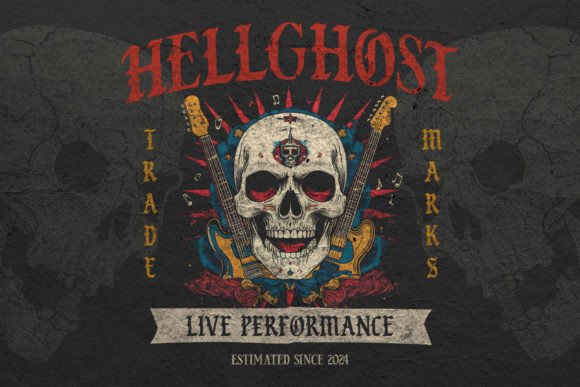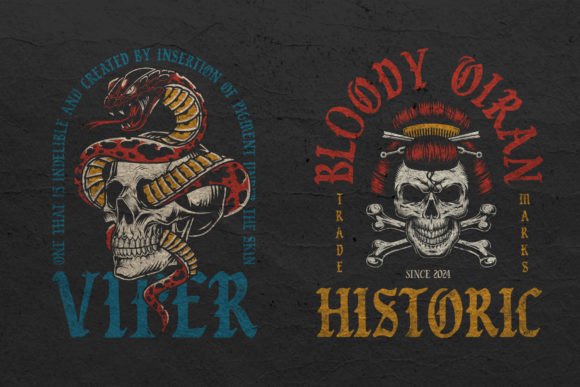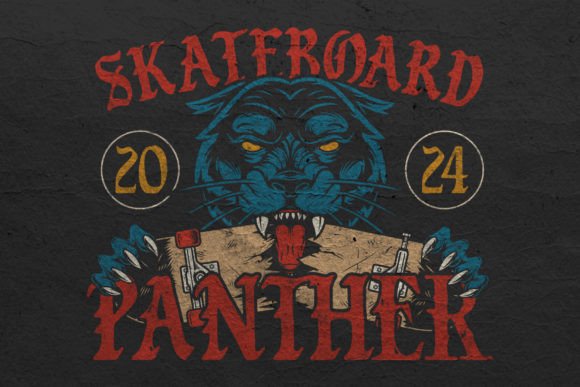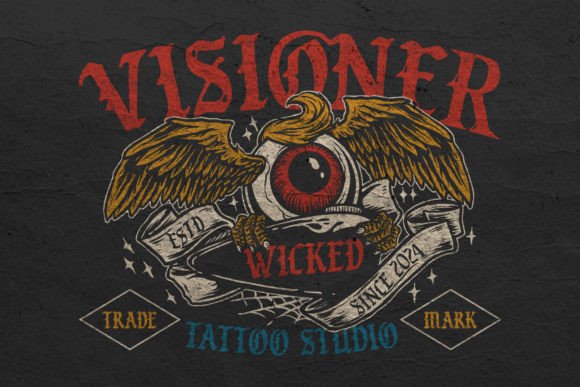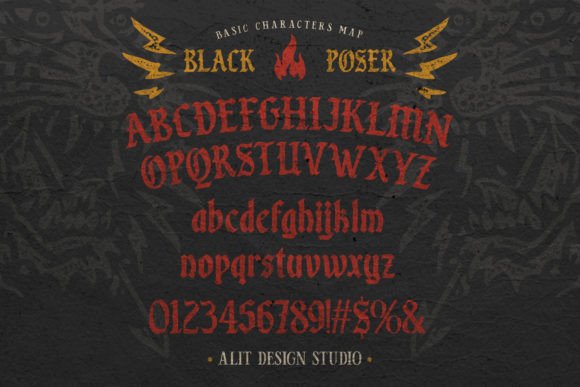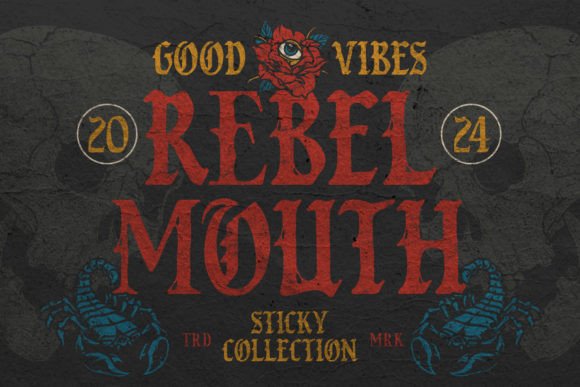
The Power of Typography: Unleashing the Black Poser Font
Have you ever stared at a blank page, surrounded by scribbled notes, and a single phrase that sparks an idea – “I want to create something bold and rebellious”? For designers, this moment is a gateway to unleashing their creativity. And what better way to express that than with a font that embodies the essence of medieval manuscripts with a modern twist?
Enter the Black Poser Font, a vintage-inspired blackletter typeface that’s about to revolutionize your design projects. This versatile font is perfect for branding, posters, and apparel design, offering 813 meticulously crafted glyphs and a range of characters and symbols. With its sharp, angular lines and intricate details, the Black Poser Font is a designer’s dream come true, providing creative freedom to enhance typographic compositions.
Black Poser Font Key Features
- Unique Characteristics: The Black Poser Font features a distinctive, bold, and modern design with a unique blend of geometric and graffiti elements, making it perfect for creating eye-catching headlines and titles.
Designer Review: Black Poser Font
Overall, I’d say the Black Poser Font is a unique and intriguing choice for designers looking to add some edge to their projects. Here’s my take on what works and what doesn’t:
- The font’s bold and striking appearance makes it perfect for titles, headings, and other text elements where you want to grab the user’s attention.
- The font’s wide range of weights and styles offers a lot of flexibility for designers, allowing them to create a cohesive visual identity.
- The font is highly legible, even at smaller font sizes, making it suitable for a wide range of applications.
- The font’s boldness can be overwhelming if used extensively throughout the design, so be sure to balance it with more subtle text elements.
- The font’s unique style may not be suitable for all audiences or industries, so consider your target audience before using it.
- The font’s lack of italic and bold italic styles may limit its versatility in certain situations.
Overall, the Black Poser Font is a solid choice for designers looking to add some personality to their projects. While it has some limitations, its unique style and flexibility make it a great option for the right project.
The Black Poser font is ideal for:
- Edgy, avant-garde designs
- Streetwear and urban fashion branding
- Dark, moody typography